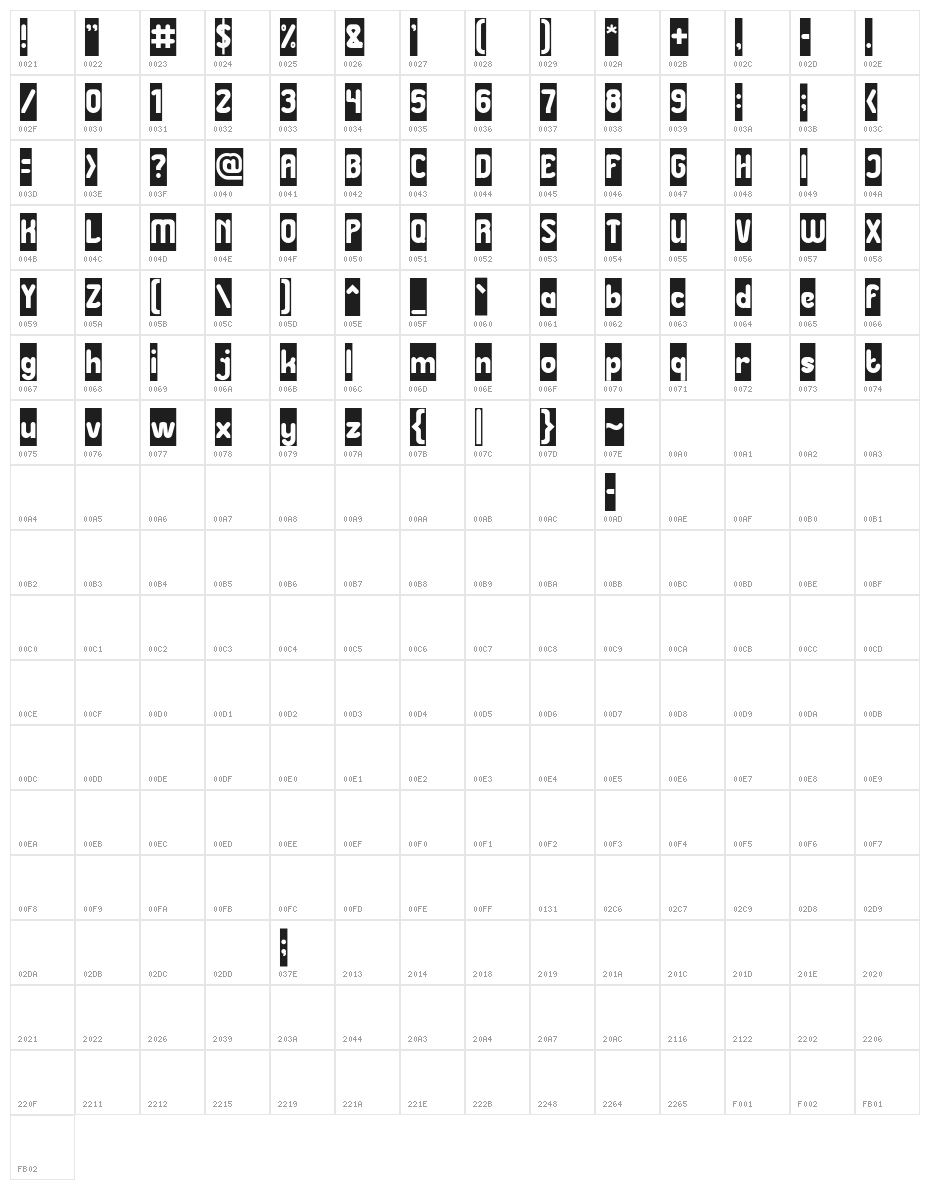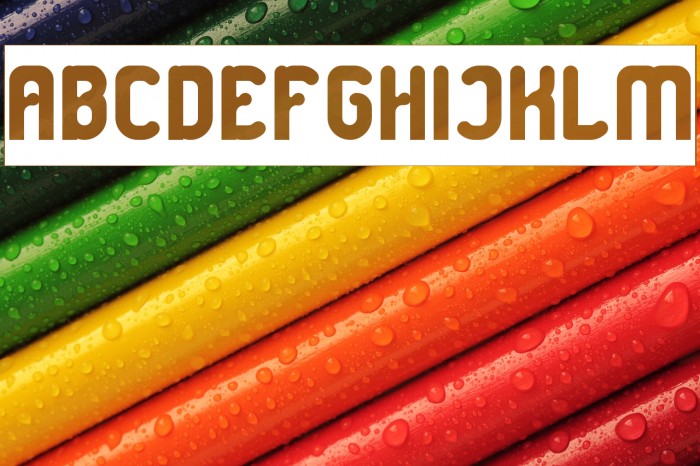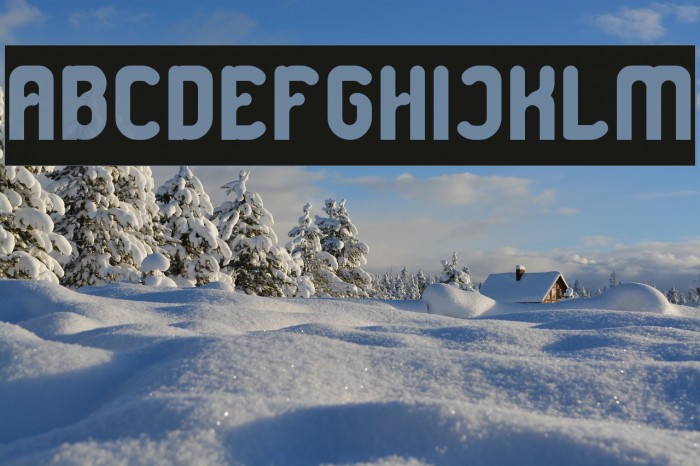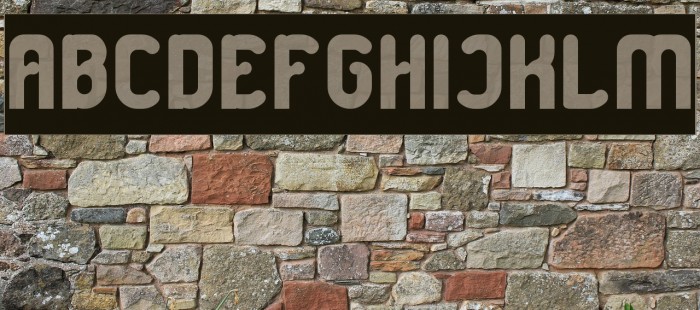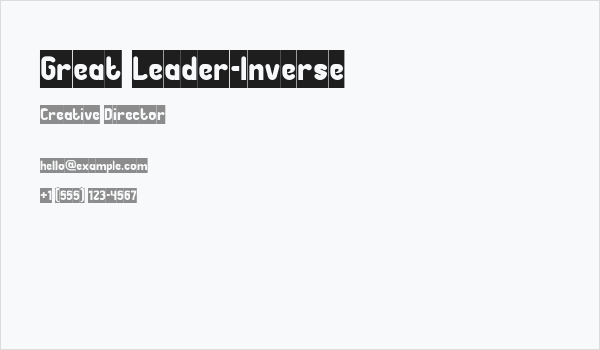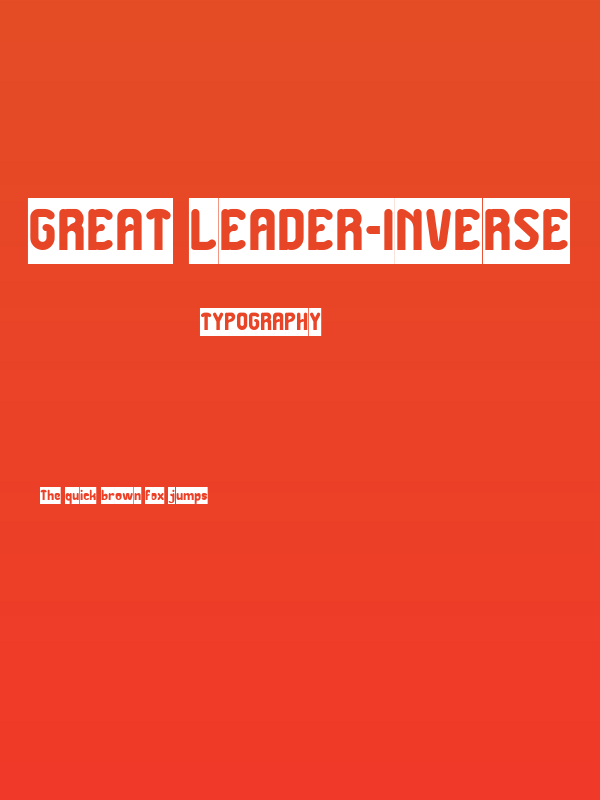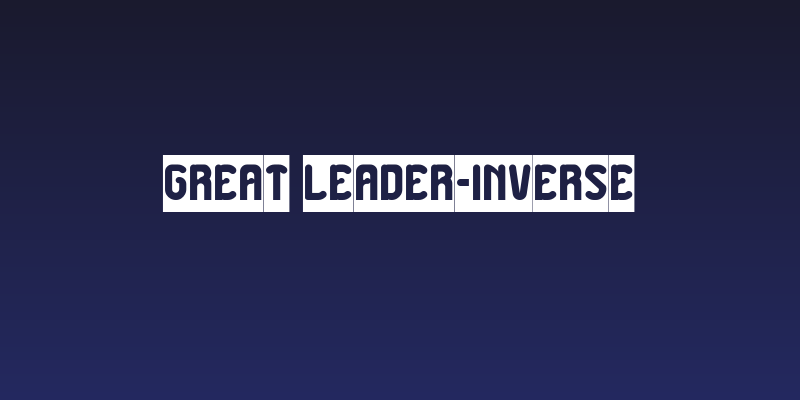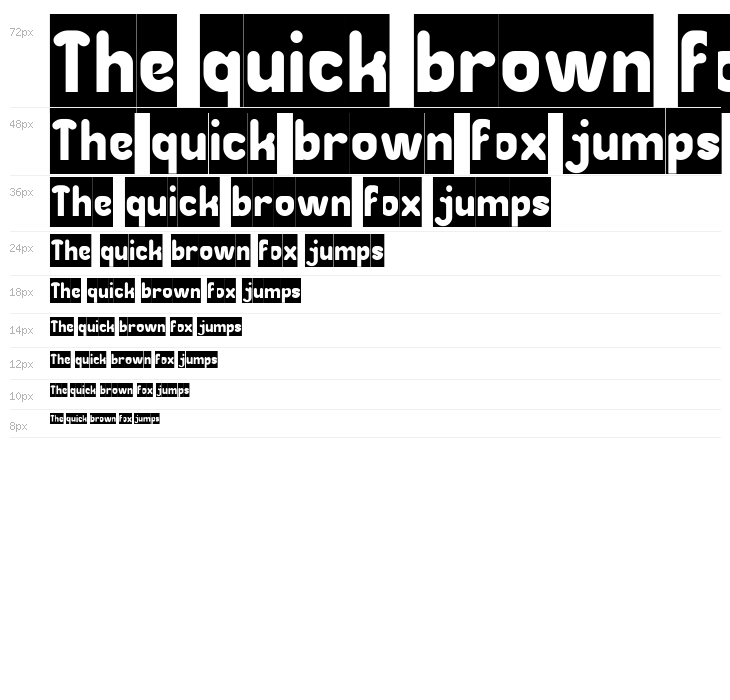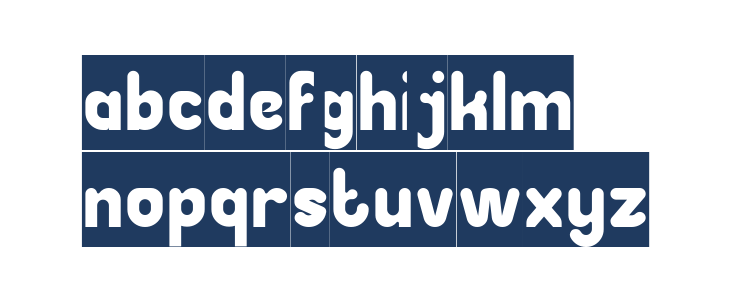
Great Leader-Inverse Font
Great Leader-Inverse Description
This font features a bold and playful design with rounded edges and a slightly condensed form. The uppercase letters are uniform in height, creating a cohesive appearance, while the lowercase letters maintain a consistent style with a touch of whimsy. The numerals are clear and easy to read, matching the overall playful aesthetic. Special characters are well-integrated, maintaining the font's unique style. The font's boldness and rounded shapes give it a friendly and approachable feel, making it suitable for a variety of creative projects.
| Overall Style | Playful, Modern |
| Proposed Projects | Ideal for children's books, playful branding, posters, and creative advertising. |